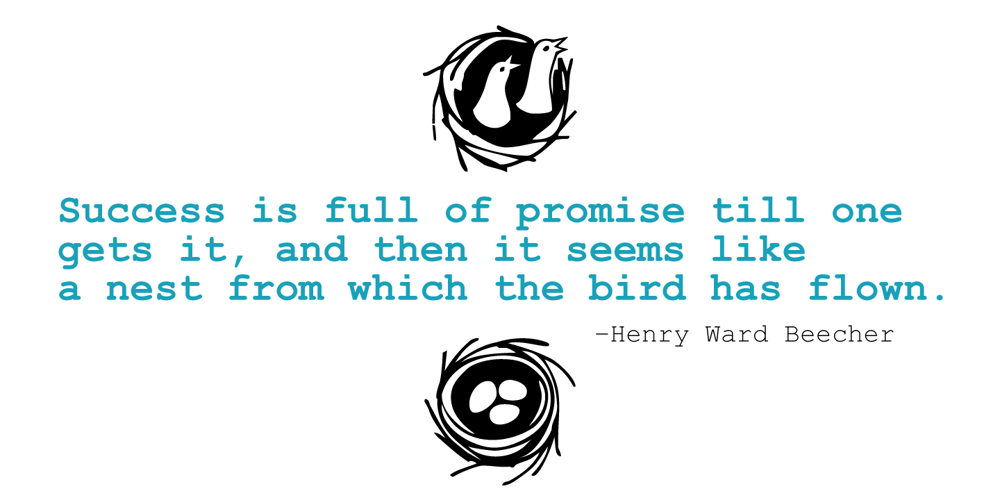
Dickybird Doodles Font Family was designed by Rae Kaiser and published by Outside the Line. Dickybird Doodles contains 1 styles and family package options. Dickybird Doodles? A dickybird is an ordinary bird, not a raptor or game bird. This illustration font has 32 of them. Birds in a cage, on a wire, in a nest. A flamingo, toucan, sandpiper, cardinal, penguin, heron, chicken & rooster, hummingbird, swan. Some line, some reverse and one with polka dots.